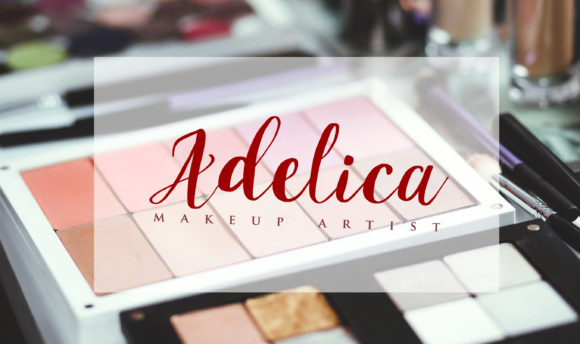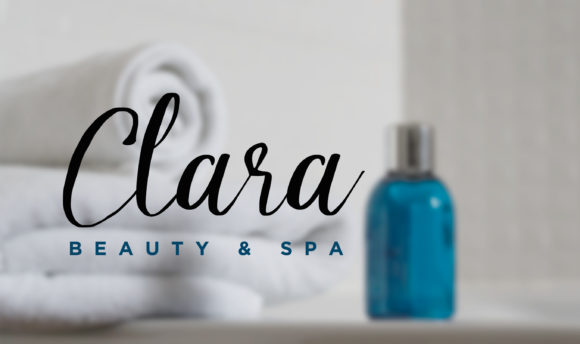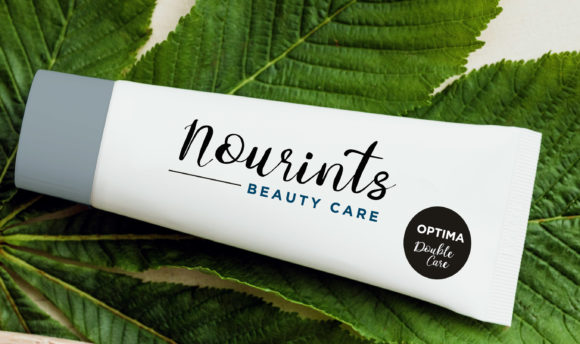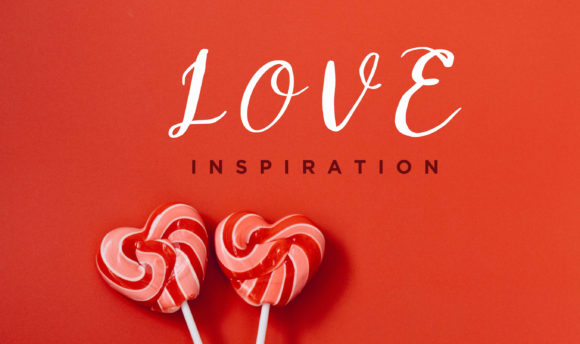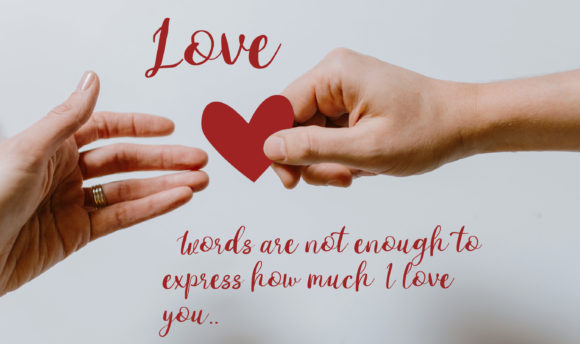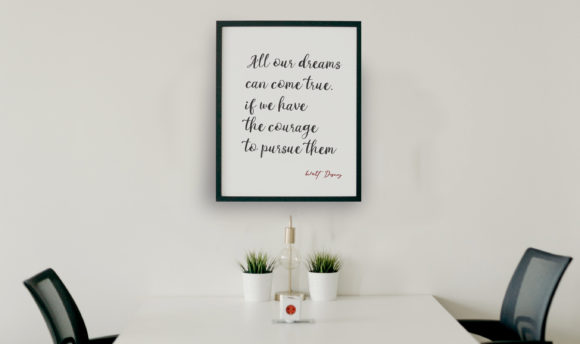
Discover the Charm of Endricast Font: Elevate Your Designs with Elegance
Are you a designer or crafter looking for a font that exudes charm and elegance? Look no further than the Endricast Font. This beautiful, handwritten font is perfect for adding a touch of sophistication to a variety of design projects, from wedding invitations and thank you cards to quotes, greeting cards, logos, and business cards.
The Characteristics of Endricast Font
Endricast Font is a stunning example of a handwritten font that feels equally charming and elegant. Its unique, cursive style is sure to capture the attention of your audience and leave a lasting impression. The font’s elegant flow and beautiful swashes make it perfect for designs that require a touch of sophistication.
Endricast Font is a versatile font that can be used for a wide range of design projects. Here are some ideas to get you started:
- Wedding Invitations: Add a touch of elegance to your wedding invitations with Endricast Font. Its beautiful, cursive style is perfect for formal wedding invitations, save-the-date cards, and thank you notes.
- Thank You Cards: Express your gratitude with style using Endricast Font. Its charming and elegant design makes it perfect for thank you cards, gift tags, and other correspondence.
- Quotes and Greeting Cards: Add a touch of sophistication to your quotes and greeting cards with Endricast Font. Its beautiful swashes and elegant flow make it perfect for designs that require a touch of elegance.
- Logos and Business Cards: Use Endricast Font to create a lasting impression with your logos and business cards. Its unique, handwritten style is sure to set you apart from the competition.
One of the best features of Endricast Font is that it is PUA (Private Use Area) encoded. This means that you can access all of the glyphs and swashes with ease, giving you complete creative control over your designs. With PUA encoding, you can:
- Access a wide range of glyphs and swashes: Endricast Font comes with a range of glyphs and swashes that you can use to add a touch of elegance to your designs.
- Easily customize your designs: With PUA encoding, you can easily access and use the glyphs and swashes you need to create unique and beautiful designs.
Why Choose Endricast Font?
So why choose Endricast Font for your design projects? Here are just a few reasons:
- Unique and elegant design: Endricast Font has a unique, handwritten style that is sure to capture the attention of your audience.
- Versatile: Endricast Font can be used for a wide range of design projects, from wedding invitations and thank you cards to logos and business cards.
- PUA encoded: With PUA encoding, you can easily access all of the glyphs and swashes you need to create beautiful and unique designs.
In conclusion, Endricast Font is a beautiful, handwritten font that is perfect for designers and crafters looking to add a touch of elegance to their designs. With its unique, cursive style and PUA encoding, it’s easy to see why Endricast Font is a popular choice for a wide range of design projects. Whether you’re creating wedding invitations, thank you cards, quotes, greeting cards, logos, or business cards, Endricast Font is sure to elevate your designs to the next level.